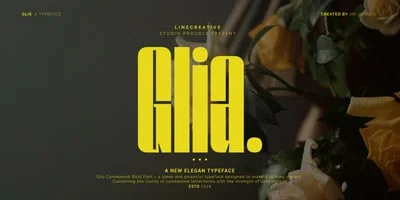
The Glia Font, designed by Ari Juanda, is a sleek and modern sans-serif typeface, often characterized by its condensed letterforms and strong, clean strokes. It aims for a minimalist aesthetic that is both impactful and highly legible. Imagine its precise characters making a striking statement as headlines for contemporary magazines, adding a powerful and elegant touch to corporate branding, or forming the clear backbone of user interfaces for mobile applications and digital platforms. Its straightforward design and efficient use of space also make it an excellent choice for concise advertising, modern signage, and any project where clarity, impact, and a minimalist yet strong visual presence are paramount. Whether you're aiming for a cutting-edge, professional look or a bold statement with refined simplicity, Glia Font delivers with its unmistakable character, ensuring your visuals are both intriguing and truly memorable.
What makes Glia Font so exciting is its ability to convey strength and sophistication through simplicity. In a visual landscape that often values efficiency and clean design, this font stands out with its powerful visual impact and remarkable legibility, even in its condensed forms. It’s more than just a typeface; it’s a design accelerant that can instantly communicate clarity, modernity, and a confident attitude. Glia Font offers designers the opportunity to create visuals that are both visually assertive and remarkably clear, making it an invaluable asset for those looking to communicate a sense of power, precision, and contemporary flair in a compact and impactful form. Its versatility ensures it performs beautifully across various mediums, from small screen text to large-format displays.
The Glia Font family is typically structured to offer a range of styles that amplify its condensed and impactful appeal. Beyond the primary Glia Regular typeface, you might find companion styles such as a more impactful Glia Bold for even stronger emphasis, or potentially Glia Light for a delicate, airy quality while maintaining its overall condensed structure. Given its modern and often display-oriented nature, the family might focus on strong weight variations within its condensed framework. Professional versions often include extended language support, typically covering Latin Western European languages, ensuring its versatility for a broad range of communication needs. These diverse family members provide designers with the flexibility to establish a clear typographic hierarchy and maintain a consistent, high-impact, and aesthetically pleasing appearance across all elements of a project, from prominent headlines and logos to subtle design accents.
For projects demanding a bold, condensed, and powerfully assertive modern feel, consider the impactful Glia Font. It's an excellent choice to make your designs stand out with uncompromising strength and a sleek edge.